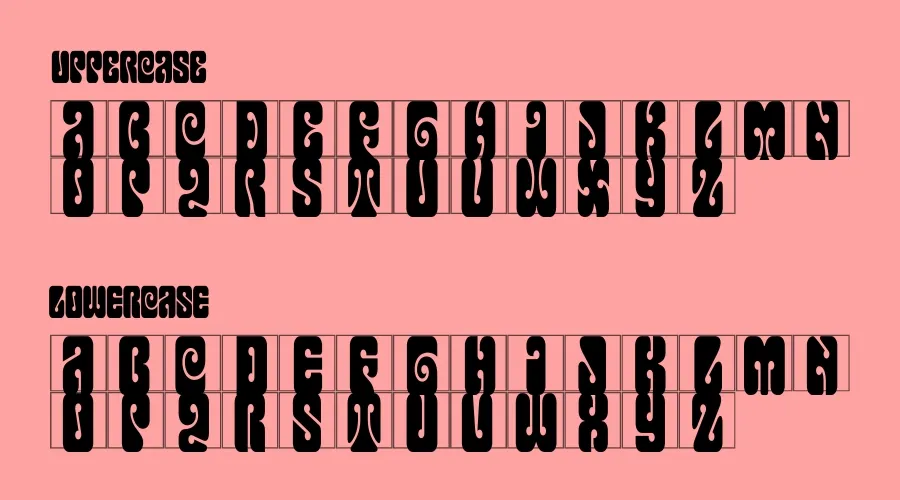
About Terpsichora Font
The Terpsichora Font includes 184 unique types of characters, and the subfamily of this font is regular. It was developed by David Nalle and published through Scriptorium on 01 Sept 2017. You may get it in both file formats OpenType and TrueType.
It looks like the decorative texture family. The online generator tool of the Terpsichora texture will help you to convert all your simple fonts into stylish and modern shapes. This font has the amazing copy-and-paste capability and can make urgent projects.
This unique texture has multiple glyphs and is available in various characters of the alphabet set, including capital and lowercase letters, numbers, markings, indications, symbols, punctuation, and many other eye-catching constructions.